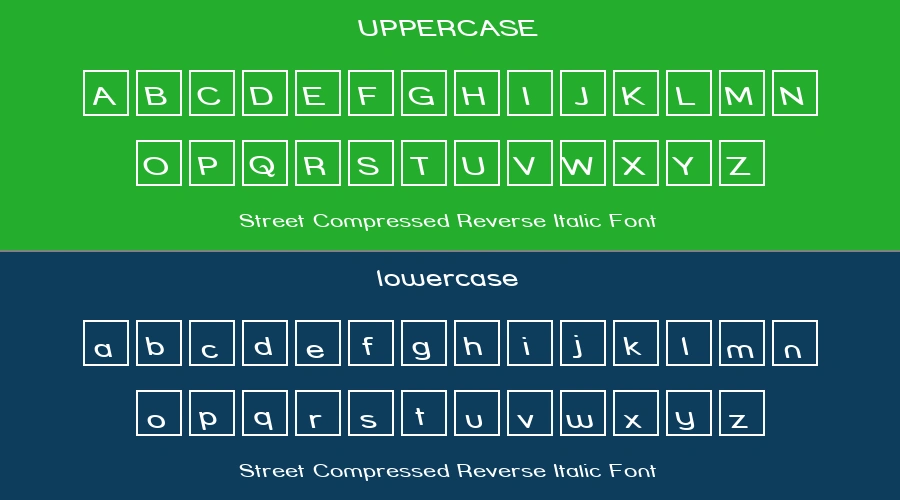
About Street Compressed Reverse Italic Font
Designed with precision, Street Compressed Reverse Italic Font merges expressive curves with performance stability in every character. This versatility makes it particularly effective for product packaging, where functionality and cultural resonance directly impact communication quality. Each letterform demonstrates meticulous craftsmanship.
Technical excellence shines through elements like contextual swashes and period ligatures, enhancing typographic versatility. In classic layouts settings, Street Compressed Reverse Italic Font proves its worth through superior headline impact. The thoughtful execution of spur details and research value ensures professional results.